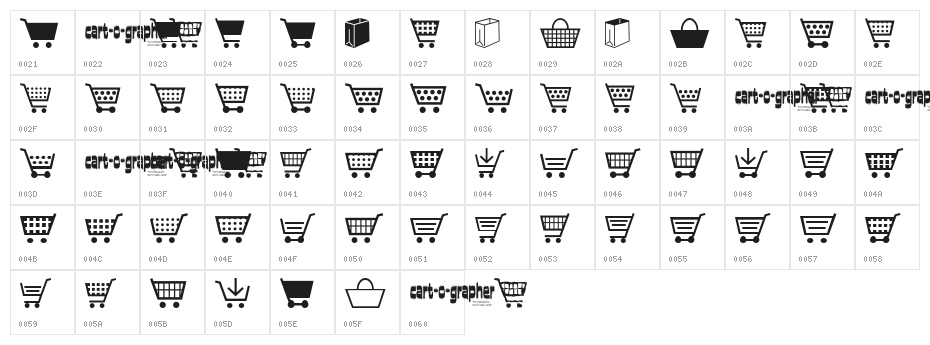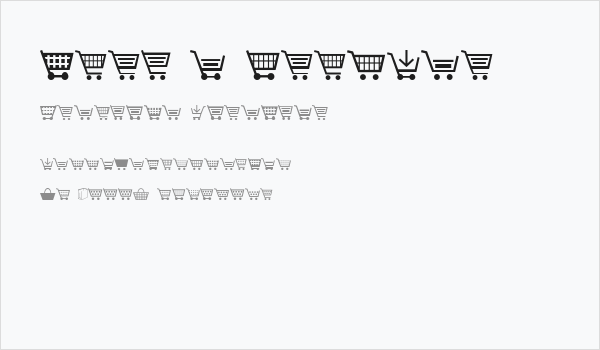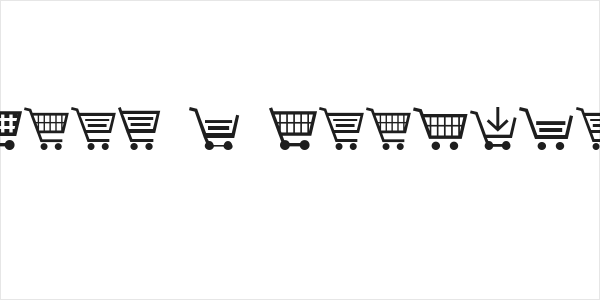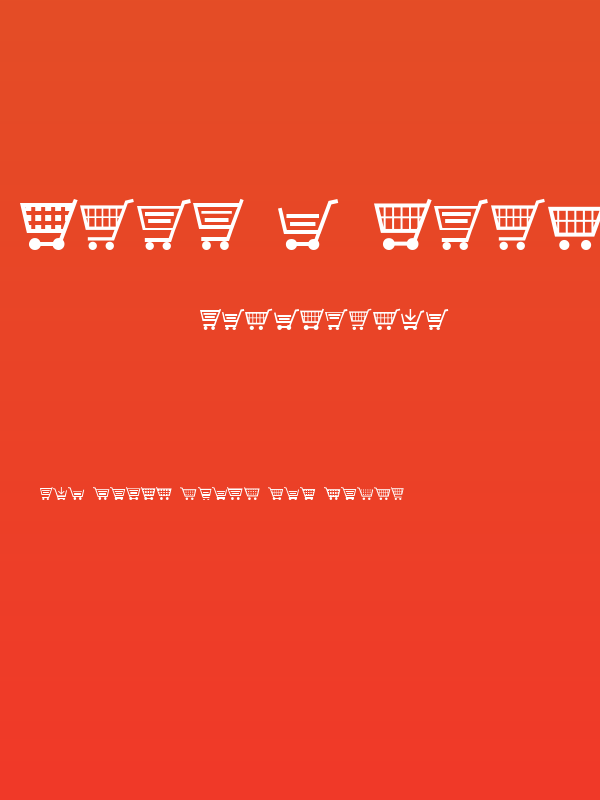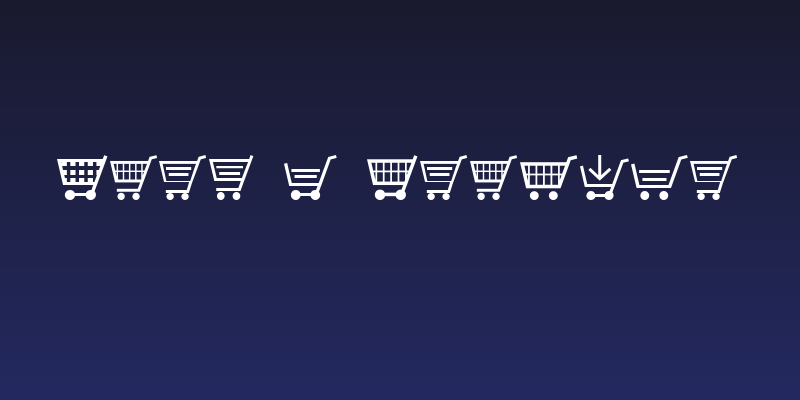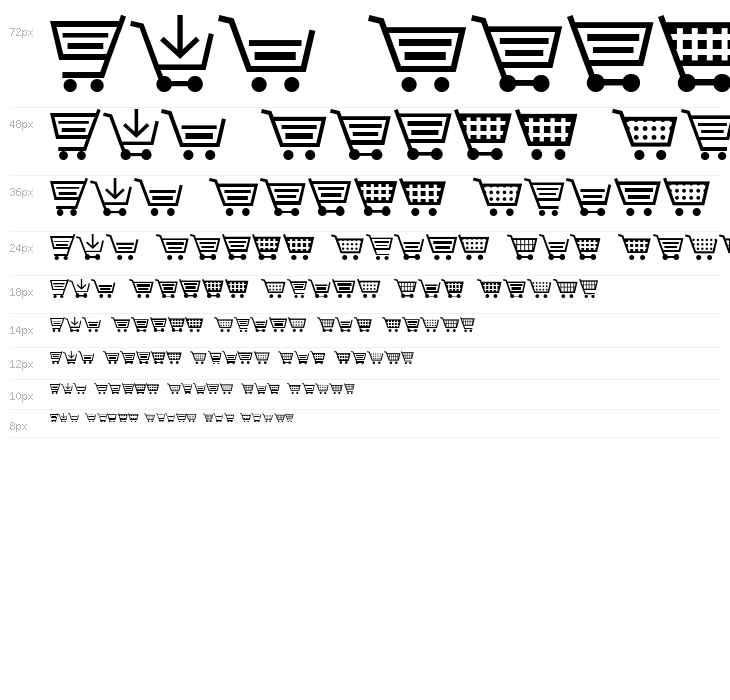
cart o grapher Font
cart o grapher Description
This is not a traditional font but rather a collection of shopping cart icons. Each icon represents a different style or design of a shopping cart, varying in details such as the basket pattern, wheel design, and handle shape. The icons are consistent in size and proportion, making them suitable for use in digital interfaces or print media where shopping-related imagery is required. The designs range from simple and minimalistic to more detailed and complex, providing a versatile set of options for various design needs.
| Use Case | Icons, Digital interfaces, Print media |
| Proposed Projects | Ideal for e-commerce websites, shopping apps, retail brochures, and promotional materials. |